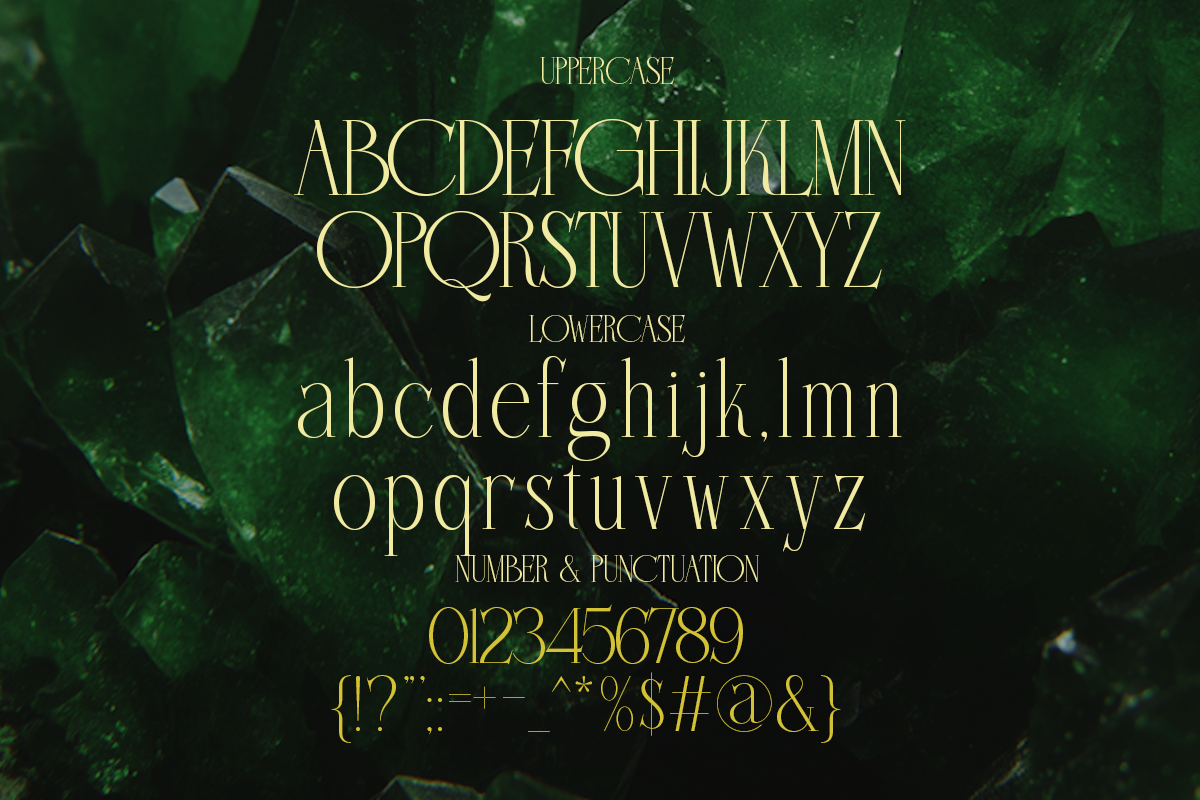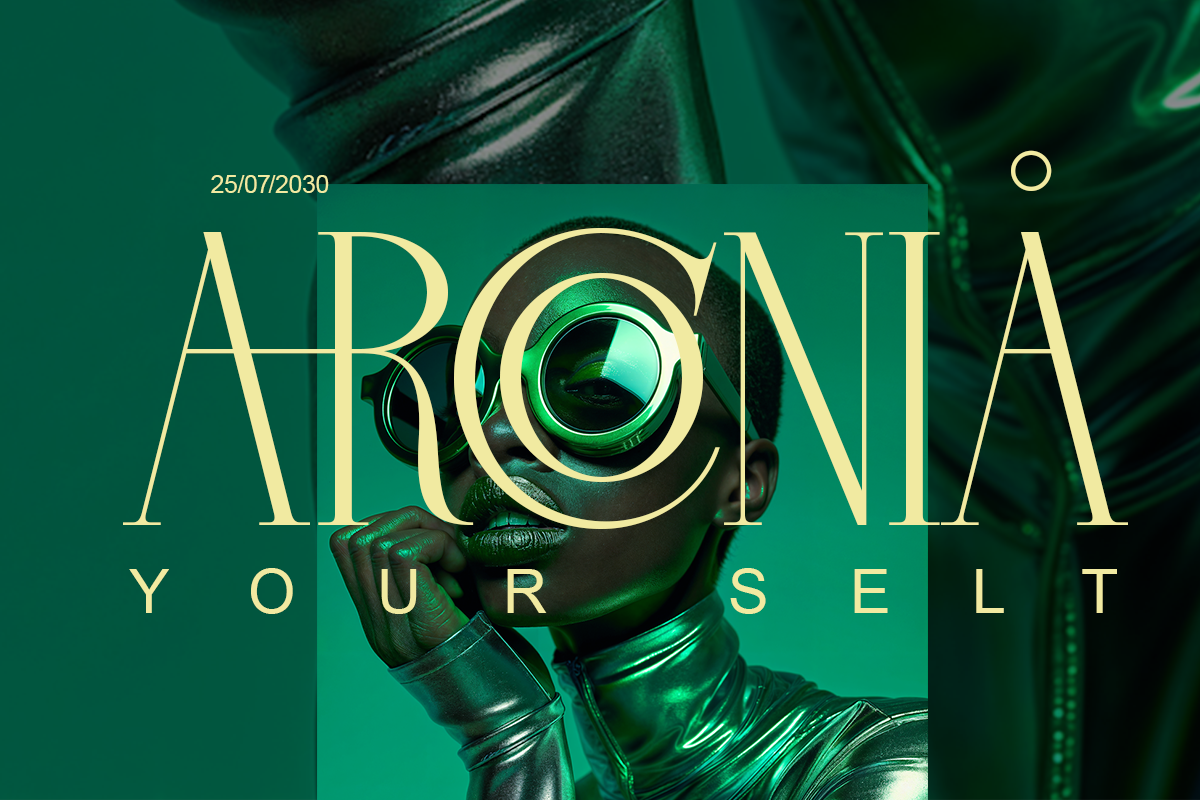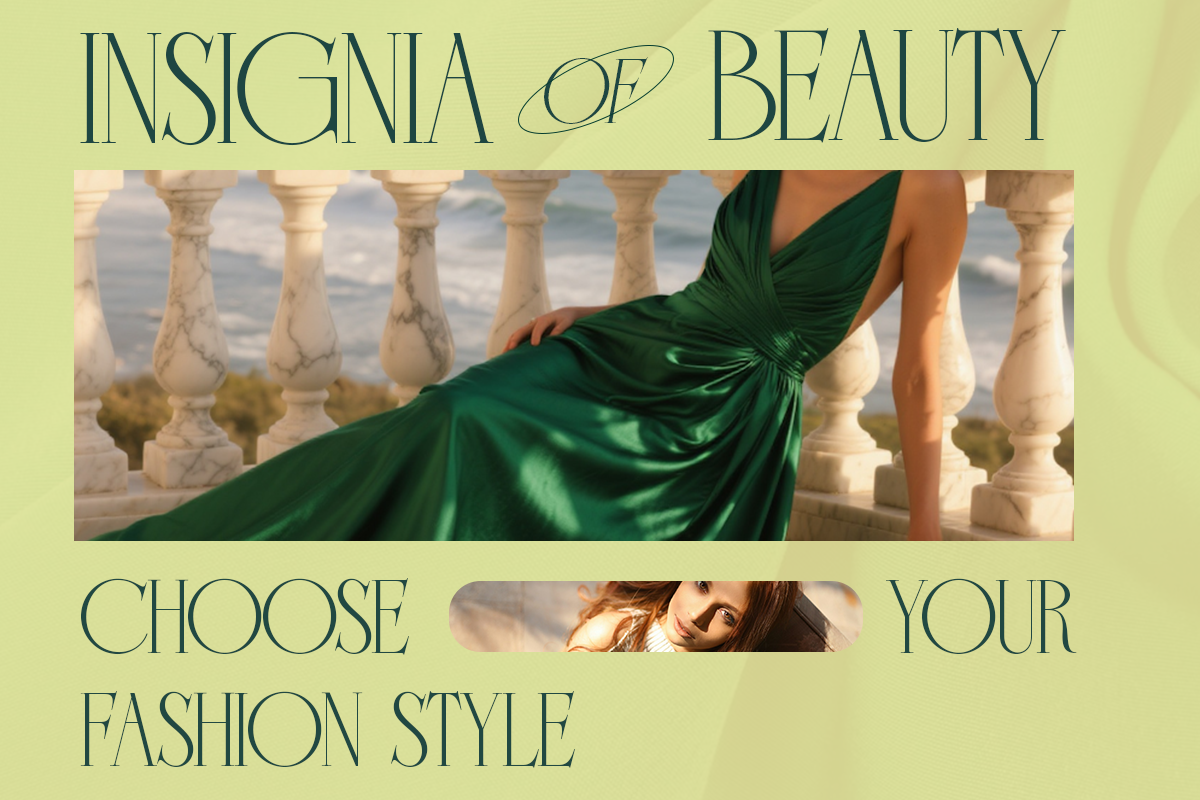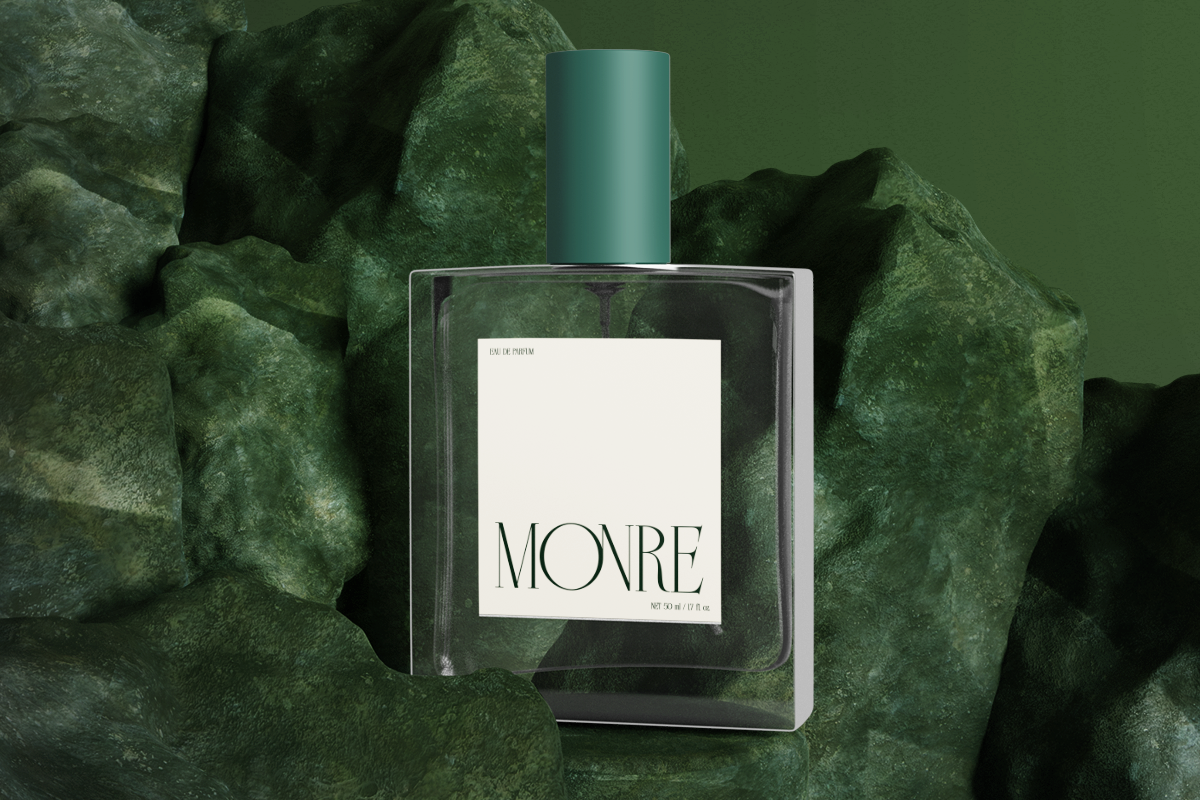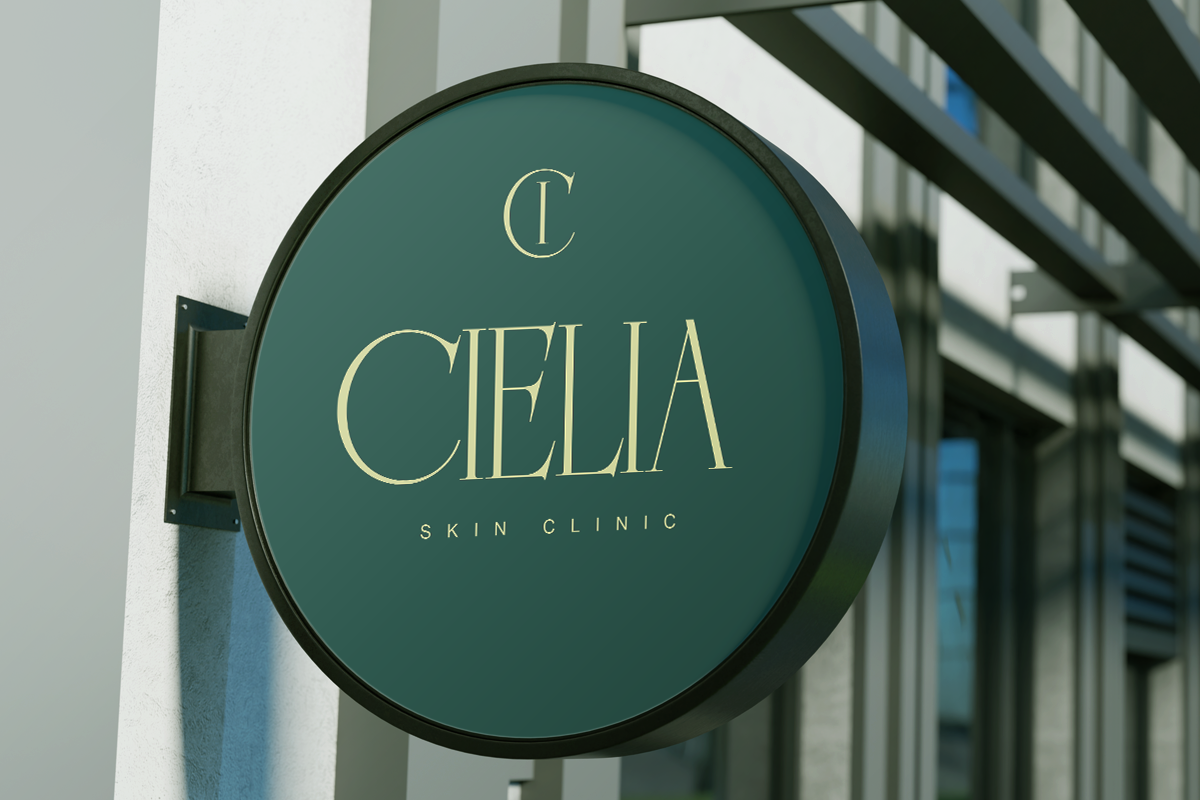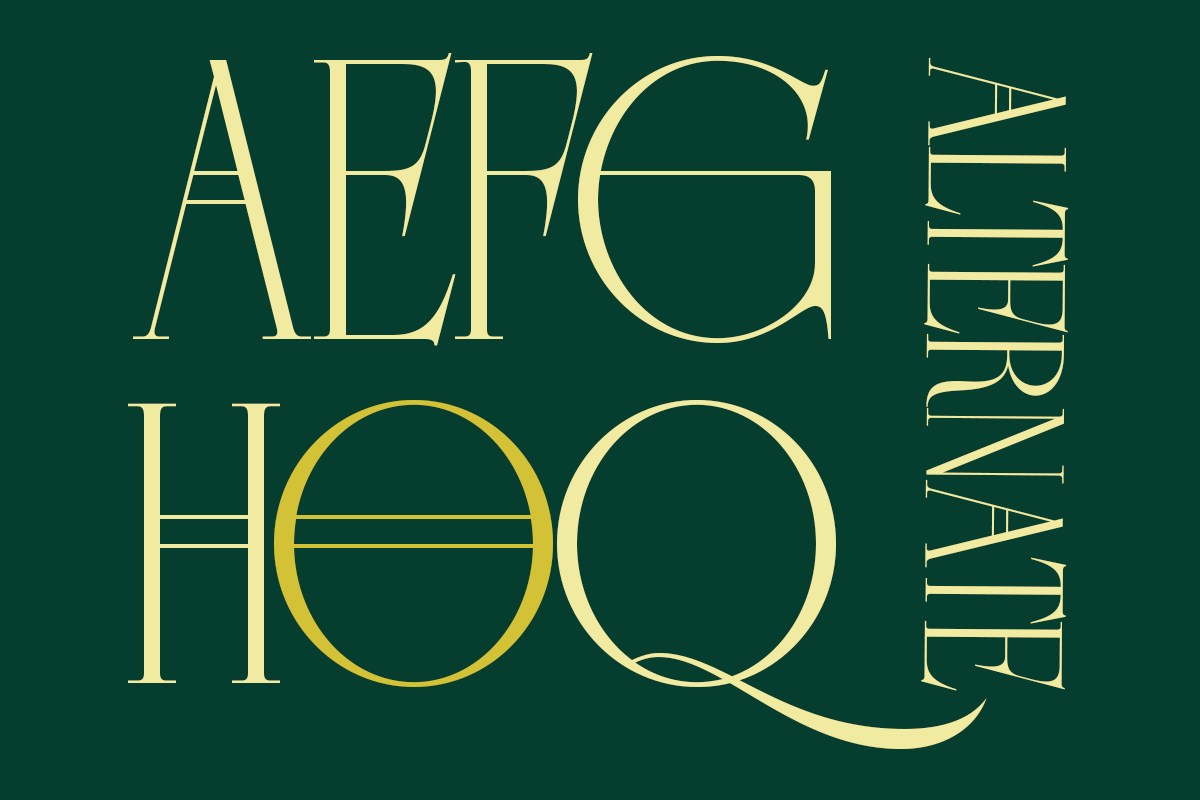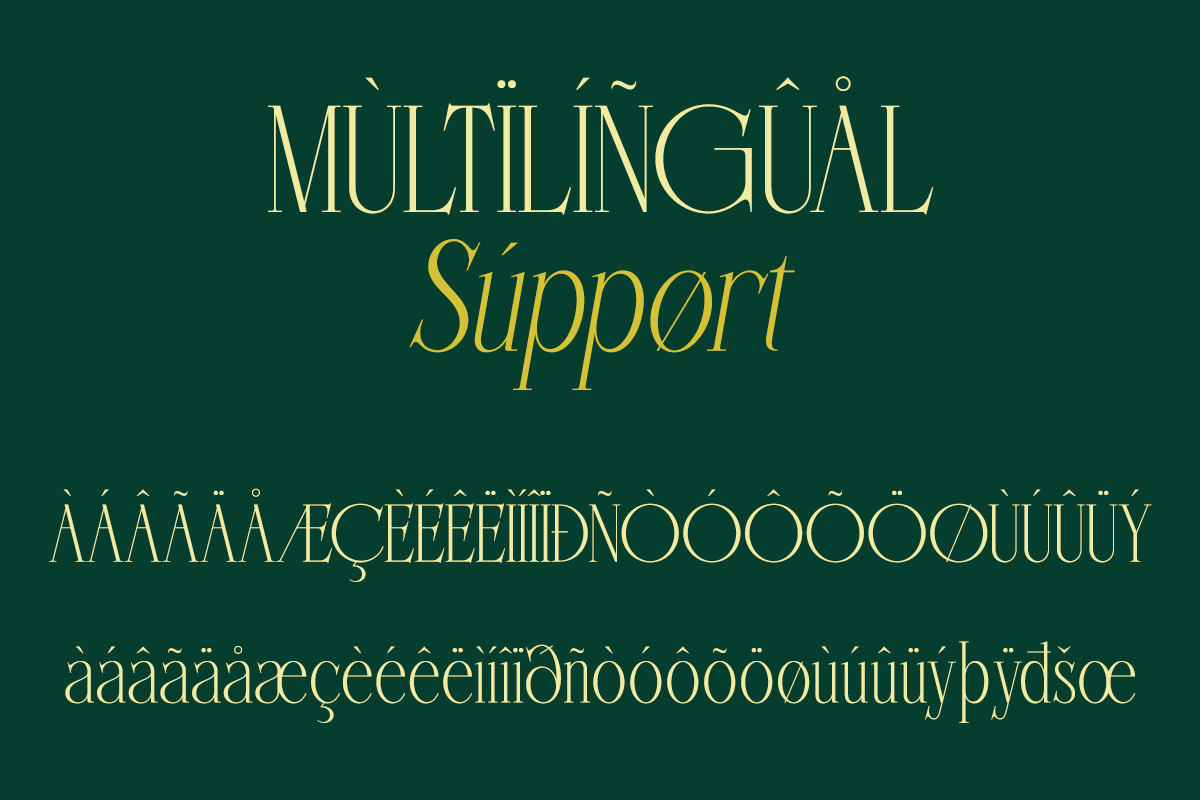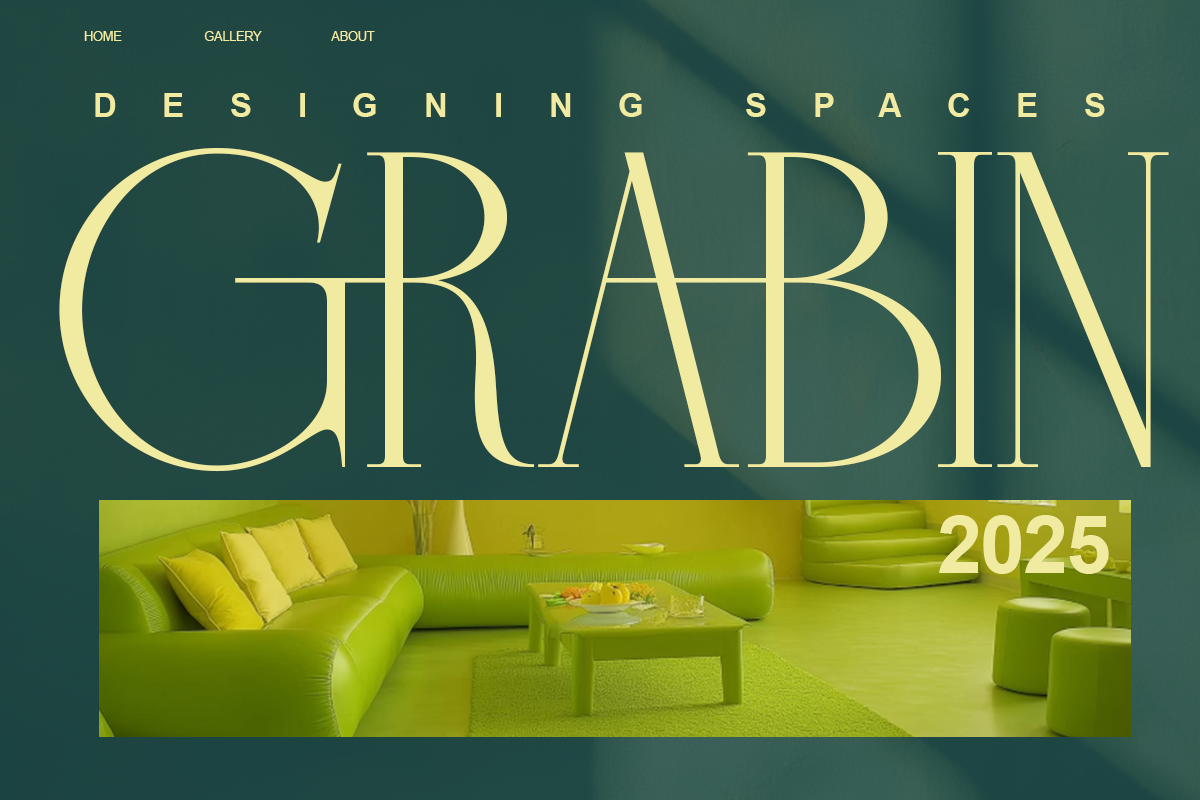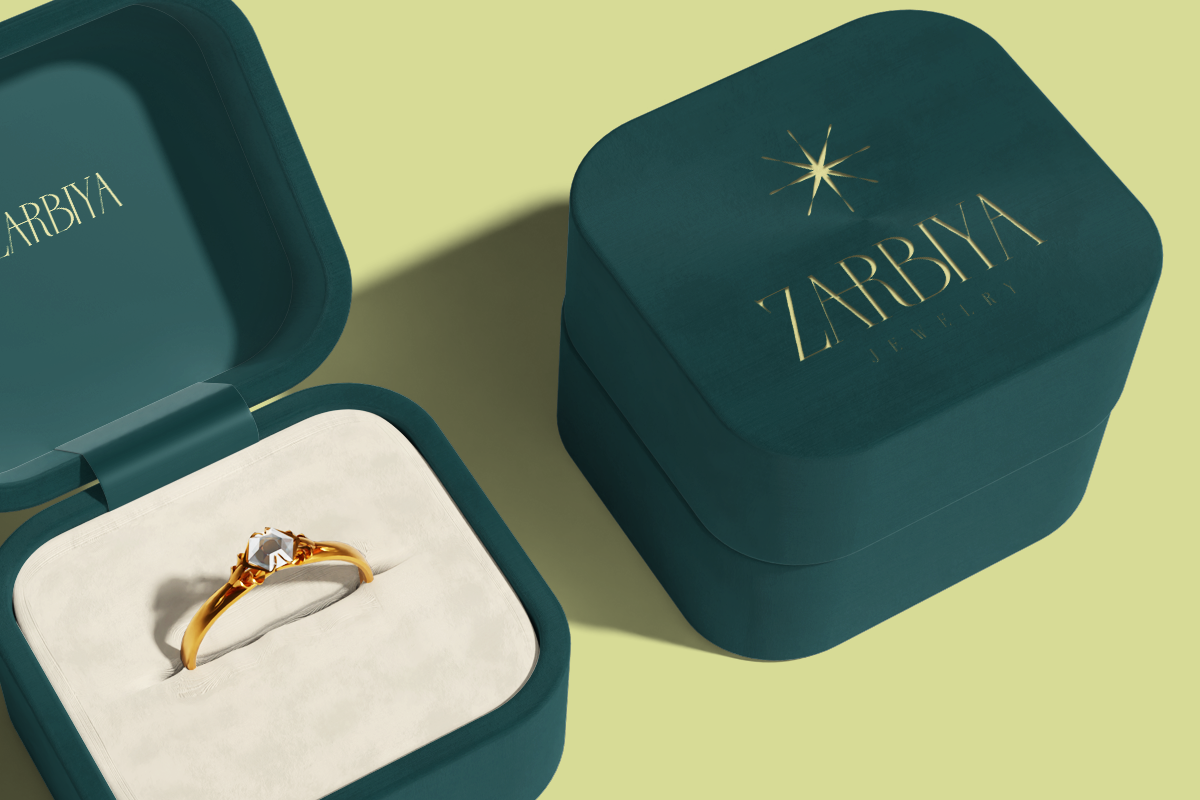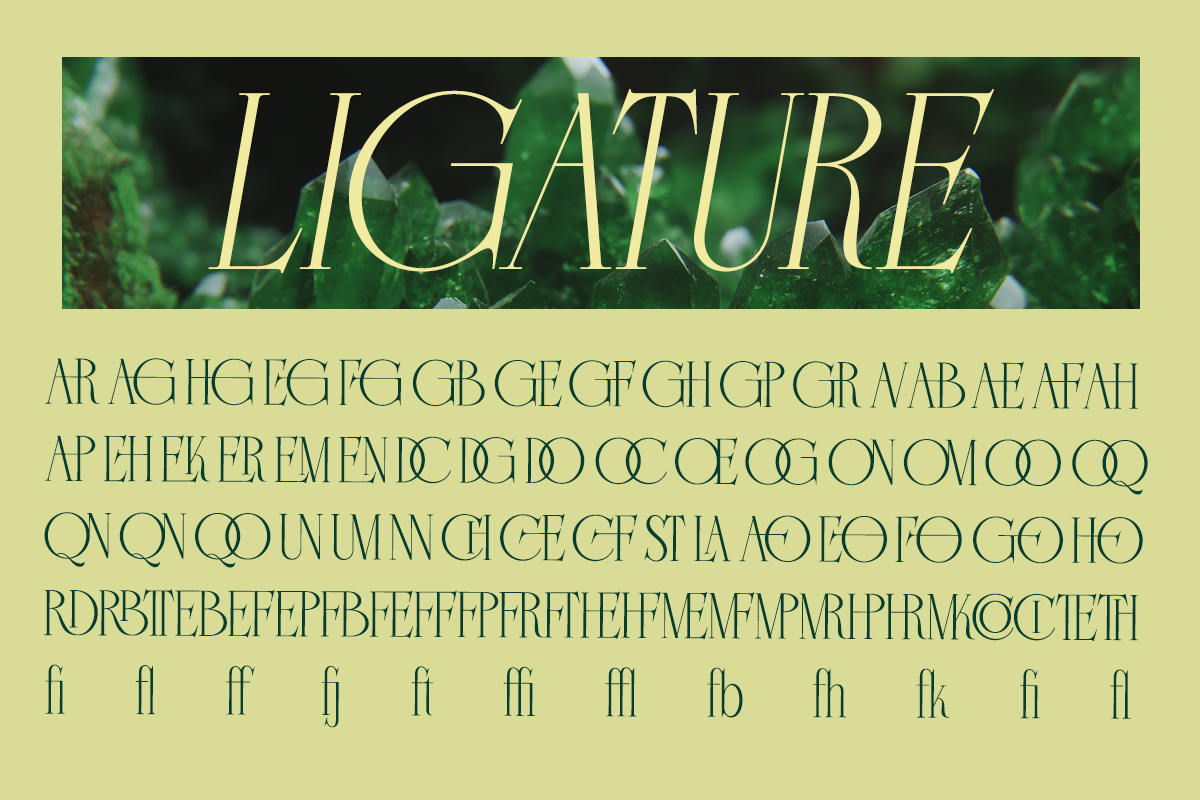
Gremont Arquela - Luxury Display
Gremont Arquela is a modern luxury serif typeface crafted for sophisticated branding and editorial layouts. Its elegant structure and refined contrast create a premium typographic tone.
Perfect for logos, fashion branding, magazine headlines, and packaging design, Gremont Arquela delivers elegant serif typography with cinematic presence.
Designed for designers seeking high-end display serif typography.
- Alternates & ligatures
- Luxury serif contrast
- Regular & Italic
Luxury branding, logo design, editorial typography, fashion branding, packaging design, premium identity